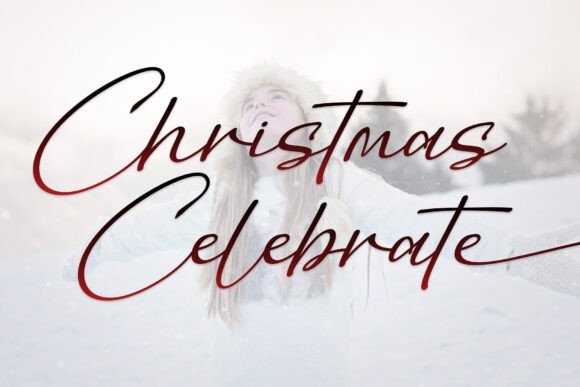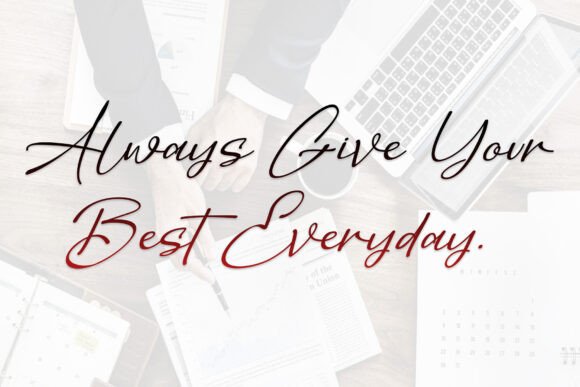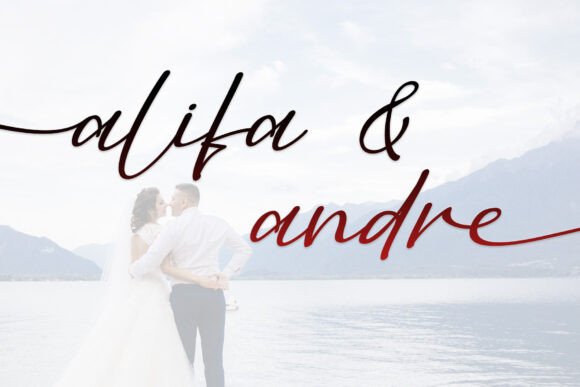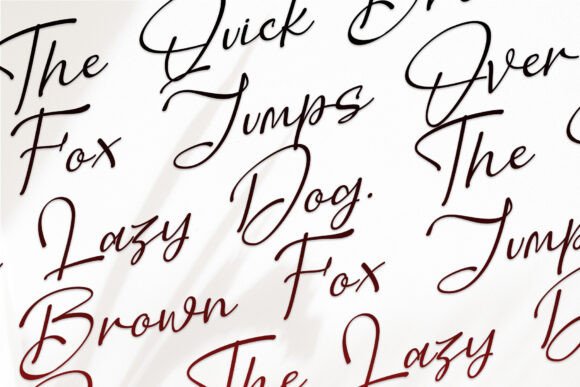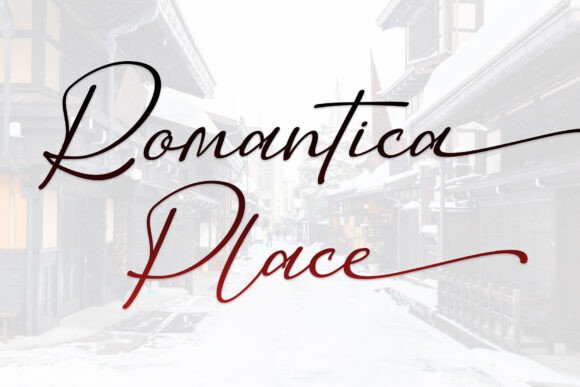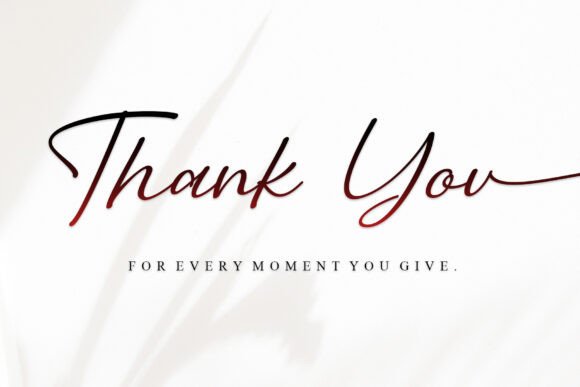
Aesthetic Lettering Font: Elevate Your Design with Unique Handwritten Elegance
In the world of typography, few font styles have captured the essence of traditional penmanship as beautifully as Aesthetic Lettering. This refreshingly authentic handwritten font is a masterpiece of modern design, bringing a touch of sophistication and elegance to any project. With its stylized natural elements and organic artistry, Aesthetic Lettering is the perfect choice for designers and crafters looking to add a personal touch to their work.
The Beauty of Handwritten Scripts
Handwritten scripts have always been a popular choice for designers seeking to add a touch of personality to their work. There’s something special about the imperfections and uniqueness of handwritten text that sets it apart from more traditional font styles. Aesthetic Lettering takes this concept to the next level, combining the charm of traditional penmanship with the sophistication of modern design.
With Aesthetic Lettering, you’ll enjoy a font that’s both versatile and visually stunning. Each letter is carefully crafted to convey a sense of elegance and refinement, making it perfect for a wide range of applications, from wedding invitations and branding materials to packaging and advertising.
What Sets Aesthetic Lettering Apart
So, what makes Aesthetic Lettering so unique? Here are just a few features that set this font apart:
- Organic Artistry: Aesthetic Lettering is a true masterpiece of handwritten design. Each letter is carefully crafted to convey a sense of natural, effortless elegance.
- Stylized Natural Elements: The font incorporates stylized natural elements, such as subtle flourishes and organic shapes, to create a truly unique and visually stunning effect.
- Sophistication and Elegance: Aesthetic Lettering exudes sophistication and elegance, making it perfect for high-end branding and design applications.
- Versatility: This font is incredibly versatile, and can be used for a wide range of applications, from digital design to print materials.
How to Use Aesthetic Lettering in Your Design
Ready to incorporate Aesthetic Lettering into your design? Here are a few tips to get you started:
- Pair with Bold Graphics: Aesthetic Lettering pairs beautifully with bold graphics and bright colors. Try combining it with a bold logo or graphic element to create a stunning visual effect.
- Use in Headlines and Titles: The font’s elegant, refined aesthetic makes it perfect for use in headlines and titles. Try using it to add a touch of sophistication to your website or marketing materials.
- Add a Personal Touch: Aesthetic Lettering is all about adding a personal touch to your design. Try using it to create a unique and eye-catching effect in your next project.
Why Designers and Crafters Love Aesthetic Lettering
So, why do designers and crafters love Aesthetic Lettering? Here are just a few reasons:
- Unique and Authentic: Aesthetic Lettering is a truly unique and authentic font style that sets itself apart from more traditional designs.
- Elegant and Refined: The font’s elegant, refined aesthetic makes it perfect for high-end branding and design applications.
- Versatile: Aesthetic Lettering is incredibly versatile, and can be used for a wide range of applications.
In conclusion, Aesthetic Lettering is a truly unique and special font style that’s sure to elevate your design to the next level. With its stylized natural elements, organic artistry, and sophisticated aesthetic, this font is perfect for designers and crafters looking to add a touch of elegance and refinement to their work. So why wait? Indulge in the timeless grace of Aesthetic Lettering today, and capture your audience with its compelling elegance.